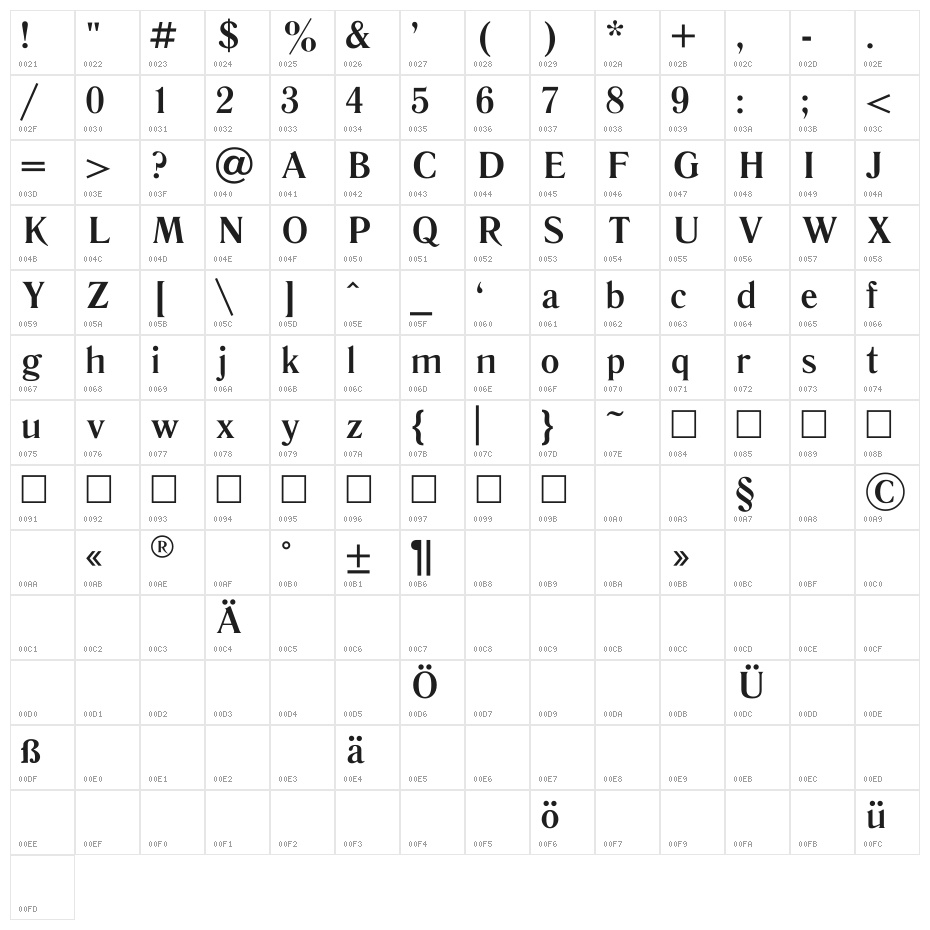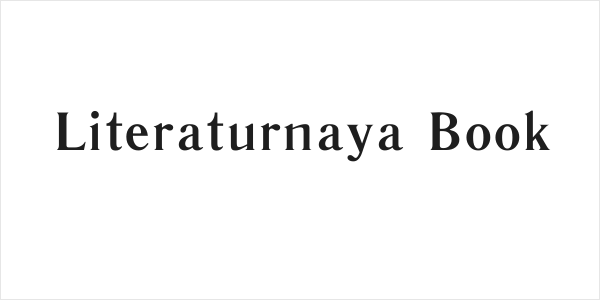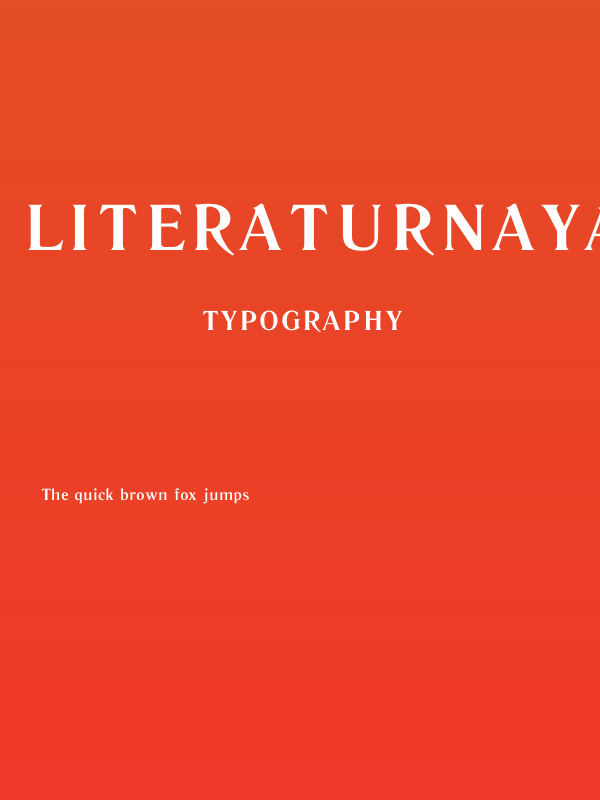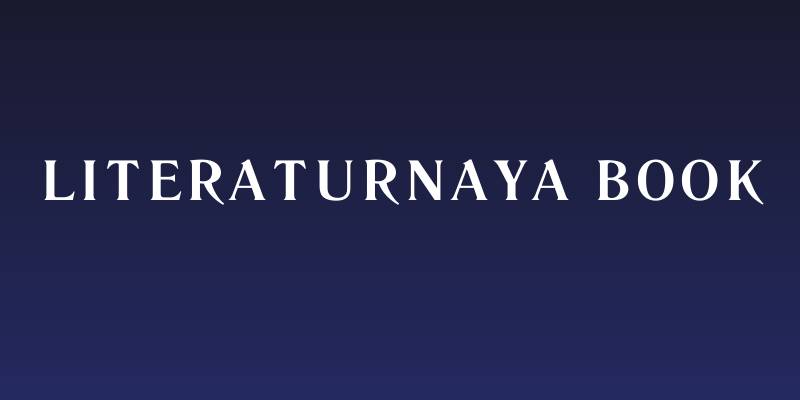
Literaturnaya Book Font
Literaturnaya Book Description
This font exhibits a classic serif style with a refined and elegant appearance. The characters are well-proportioned, featuring distinct serifs that add a touch of sophistication. The uppercase letters are bold and commanding, while the lowercase letters maintain a graceful flow. The numerals are clear and easily readable, making them suitable for a variety of applications. The special characters are designed with the same attention to detail, ensuring consistency across the font. Overall, this font combines traditional elements with a modern touch, making it versatile for both formal and contemporary uses.
| Use Case | Body text, Headlines, Editorial design |
| Proposed Projects | Ideal for book typesetting, formal invitations, branding, and editorial design. |